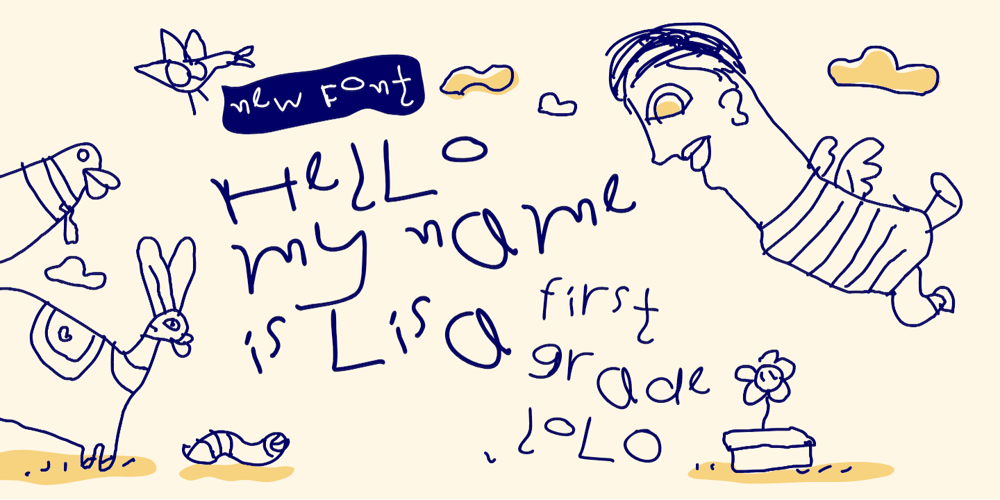
First Grade Lolo Font Family was designed by Wahyu Eka Prasetya, Afiat Sukmaraga and published by Hati. First Grade Lolo contains 1 styles and family package options. Introducing our charming new font that captures the innocent and playful essence of a toddler’s handwriting. This font mimics the delightful imperfections and joyful scribbles of young children just learning to write. Each character is designed with wobbly lines and uneven spacing, creating an authentic and heartwarming feel. Perfect for children’s books, educational materials, playful branding, and any project that seeks to evoke a sense of wonder and nostalgia. This font brings a touch of whimsy and warmth, making your designs feel more personal and endearing. Embrace the simplicity and sweetness of early childhood with this unique and captivating font, bringing a smile to anyone who encounters it.